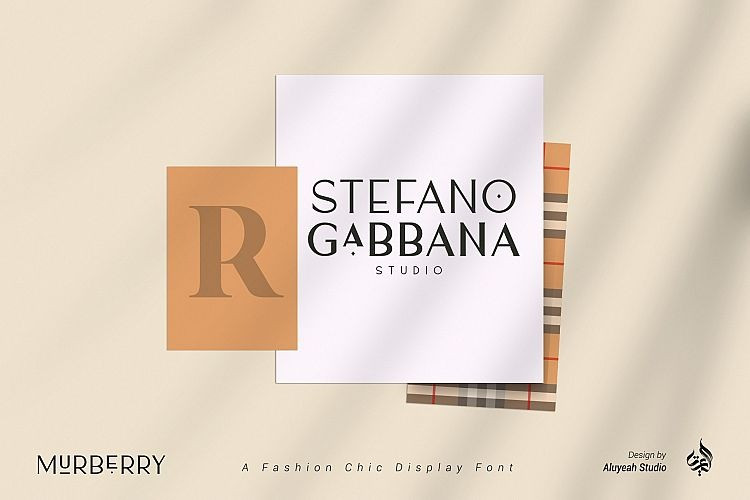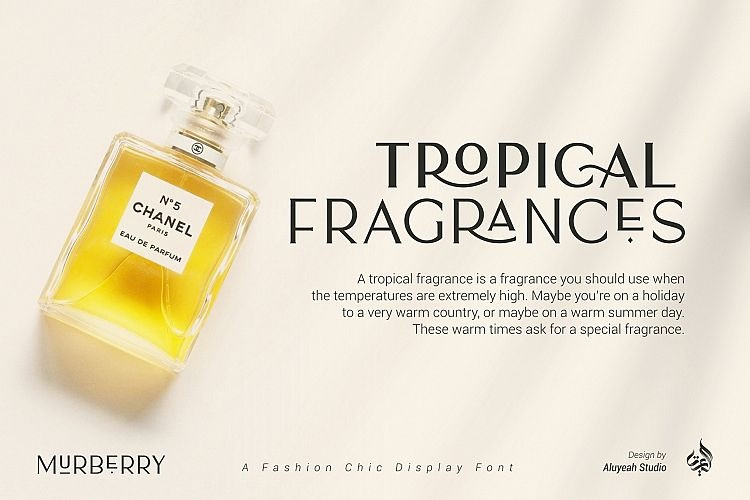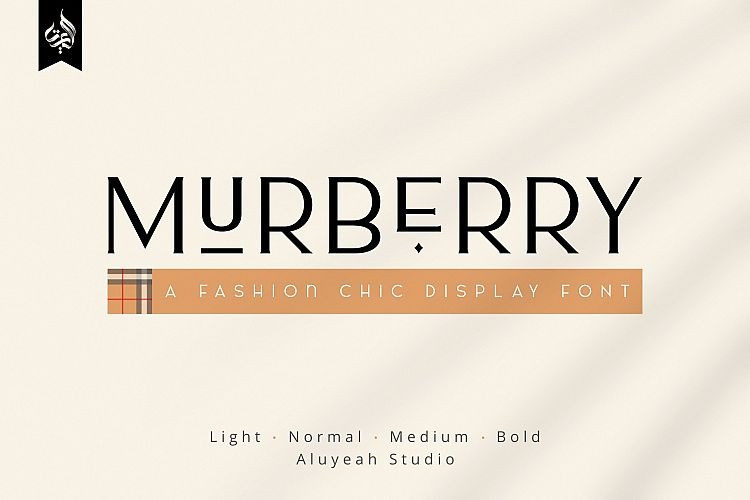
AL Murberry Display Font
Hello friend. AL Murberry Display Font is a classic and modern serif with a bunch of alternates for each characters that will make your presentation or logo even more stunning and stand out! It’s designed by Aluyeah Studio. AL Murberry Display Font a fashion chic display font. This font was carefully crafted and inspired by one of leading fashion brand in the world. In general, it creates a luxurious and elegant look in design. Use this font for your fashion brand, resort, cosmetics, invitations, wedding, branding, packaging, magazines, boutique, social media, restaurant, spa, greeting cards, headers, headline and many more.